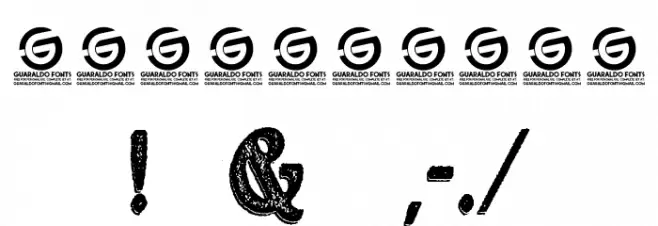
She Rocks Personal Use Font
She Rocks Personal Use Description
This font features a bold, distressed style with a textured appearance that gives it a rugged, vintage feel. The uppercase and lowercase letters are consistent in their rough, worn-out look, making it ideal for designs that require a gritty, authentic touch. The characters are well-defined despite the distressed effect, ensuring readability while maintaining a unique aesthetic. The numbers and special characters follow the same design principles, adding to the font's cohesive appearance. This font is perfect for projects that aim to convey a sense of nostalgia or rawness.